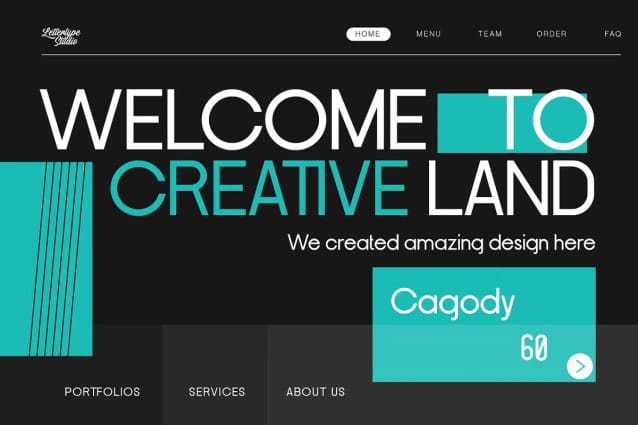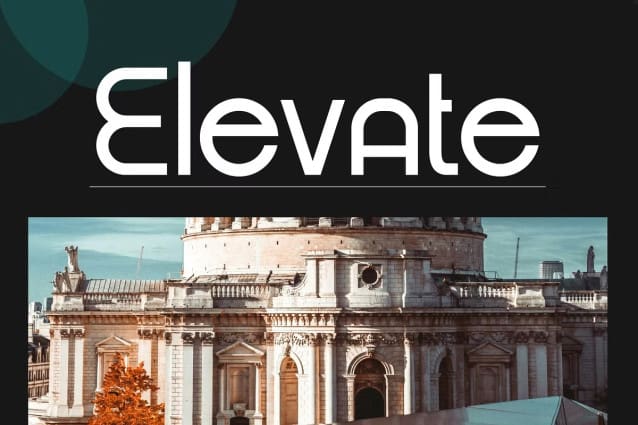
Cagody Font
Cagody Font is a modern, geometric, and elegant sans serif with extensive customization options for your unique and standout designs.
Cagody Font with over 20+ unique alternate glyphs for endless customization and creativity to control your projects.
This font is perfect for photography, watermarks, social media posts, advertisements, logos and branding, invitations, product designs, labels, stationery, wedding designs, product packaging, sub headers or headers, special events, or anything else.